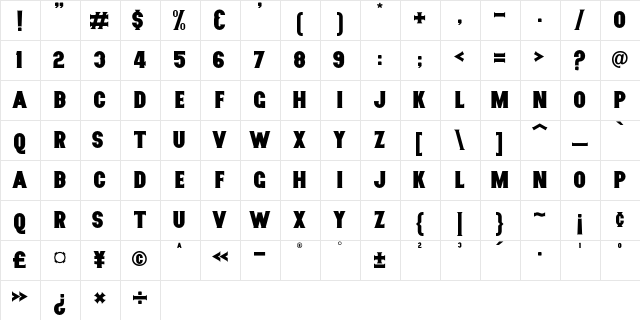
Nurjan Free Regular
Design Context for Nurjan Free Typeface
Nurjan Free offers clean, dependable letterforms without strong stylistic allegiance, making it a practical choice for designers who need flexibility.
Pro Tip: Pair Nurjan Free with a font of contrasting weight or personality to build a more expressive typographic hierarchy.